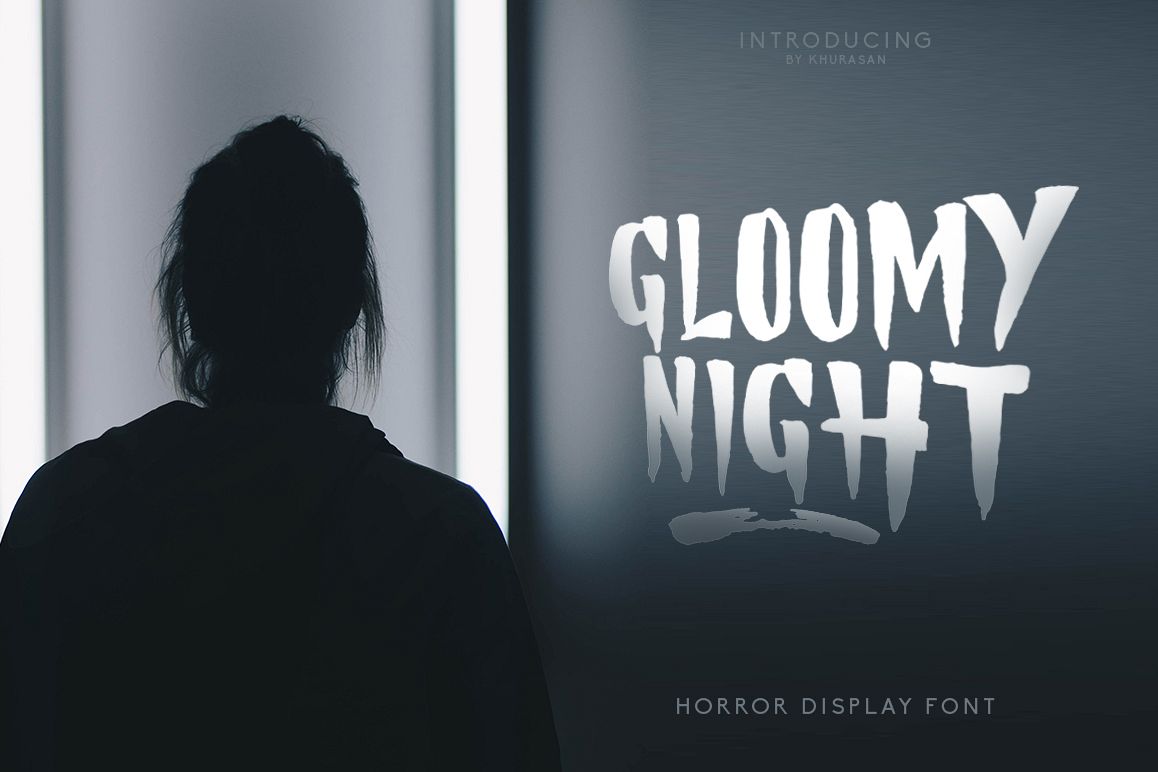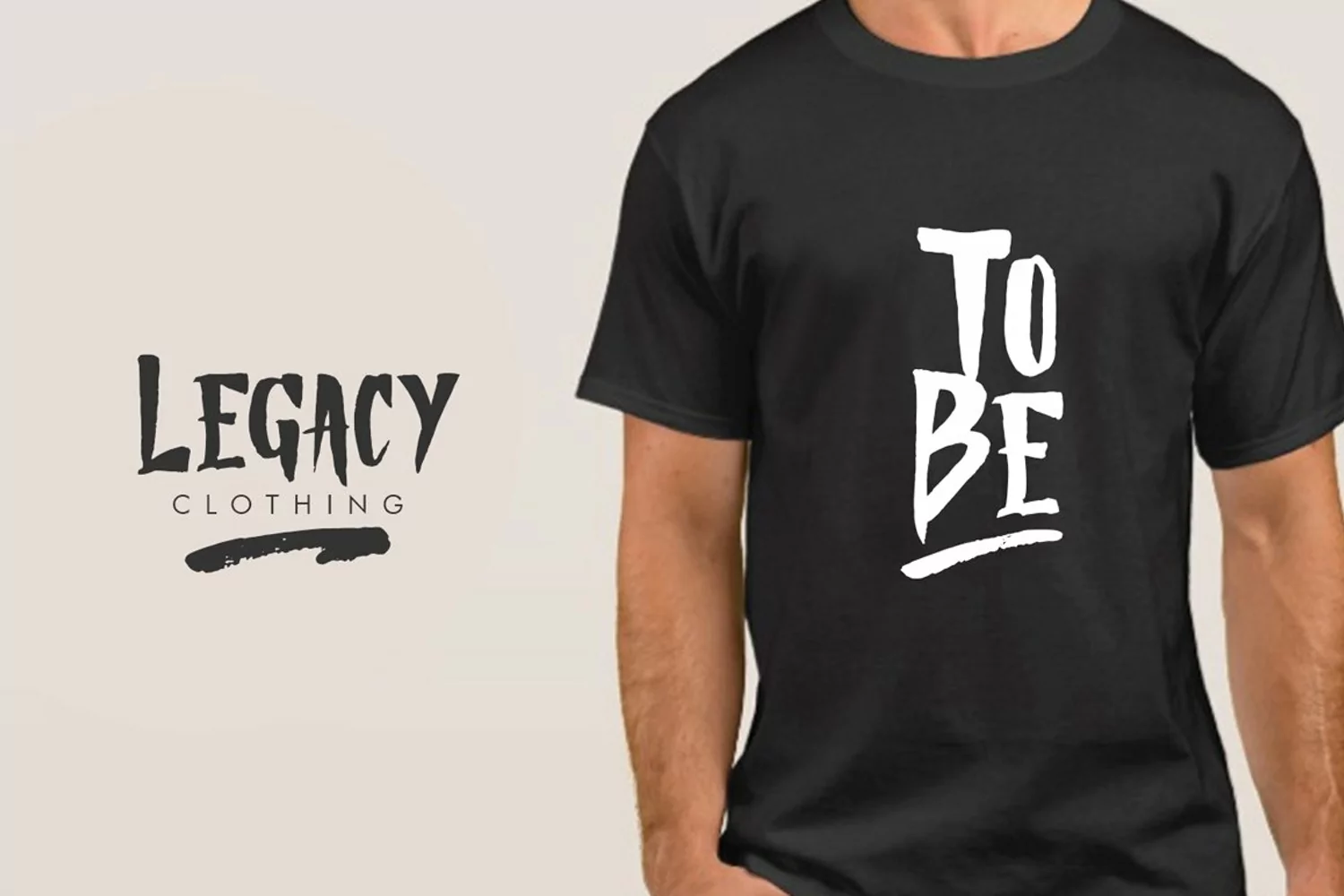
Gloomy Night Display Font is a fun market pen font with a quirky style and feel to it! It’s rough approach makes it the perfect companion for something you want to be edgy and stand out from the crowd.